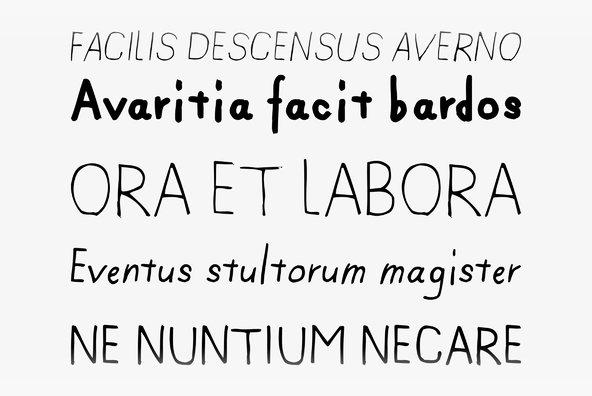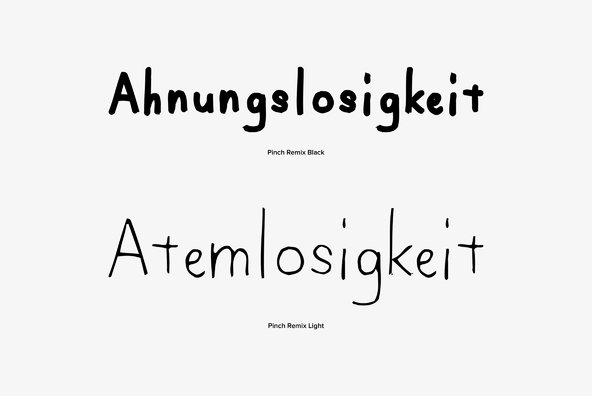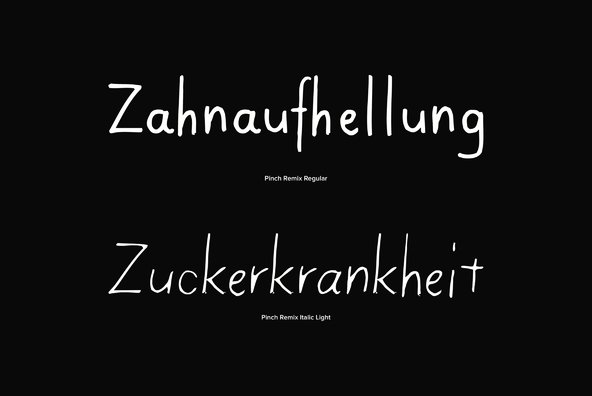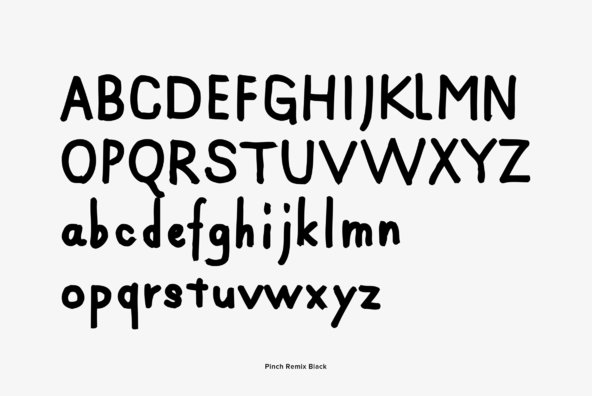
Pinch Remix
Foundry: Shuji Kikuchi / sugargliderz
Pinch Remix isn't a designed font. This font was made from the idea of don't pursue beauty intentionally. I wrote the characters unconsciously with a drawing pen, and made Pinch Remix by then tracing the drawings in the computer.